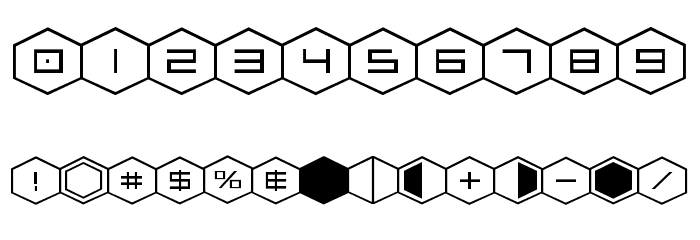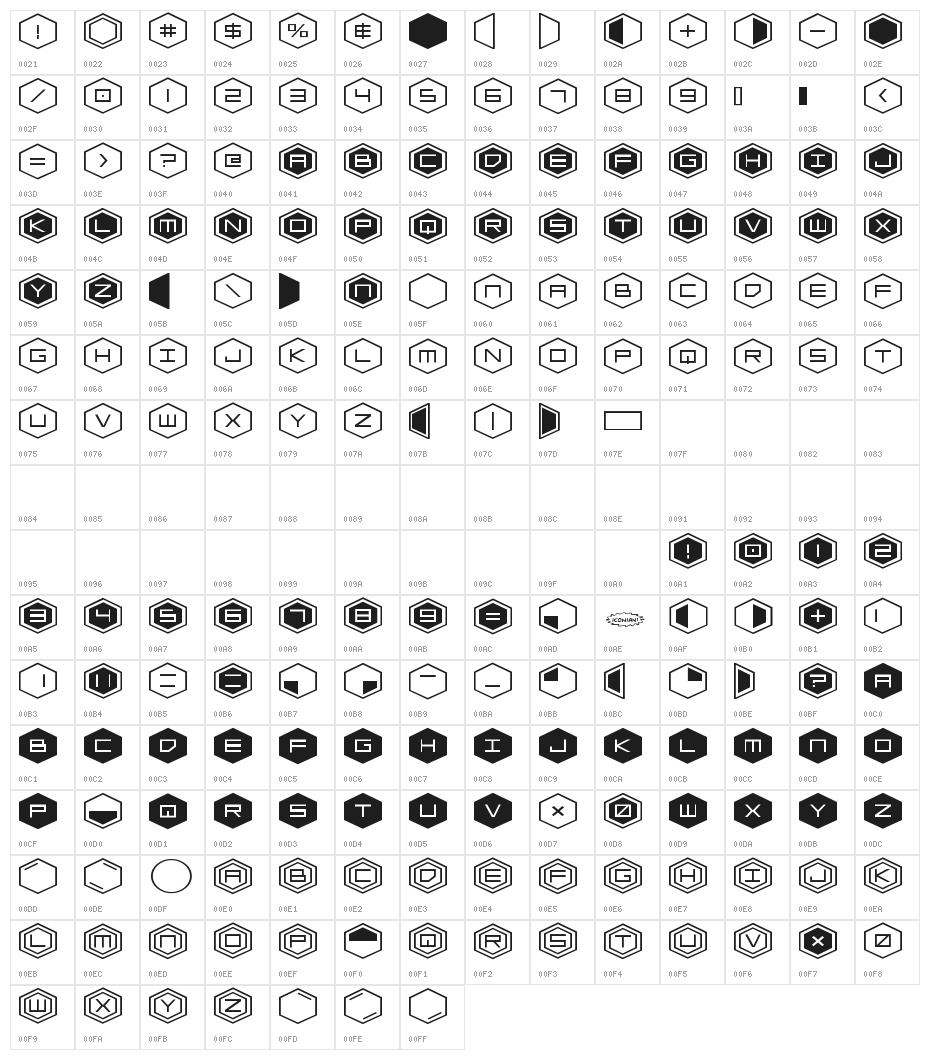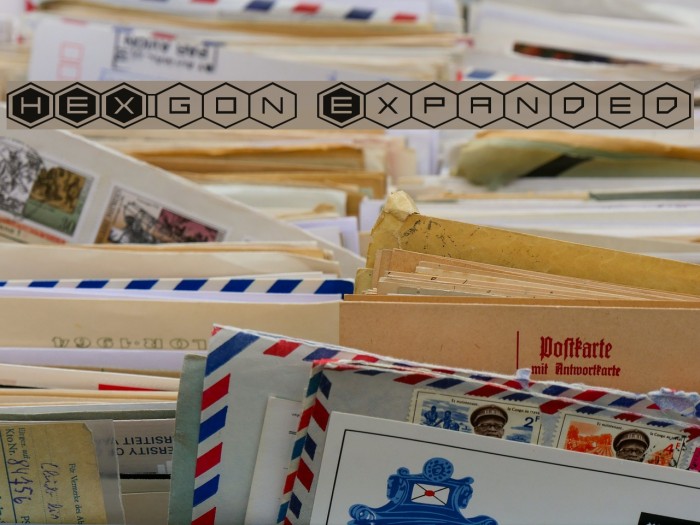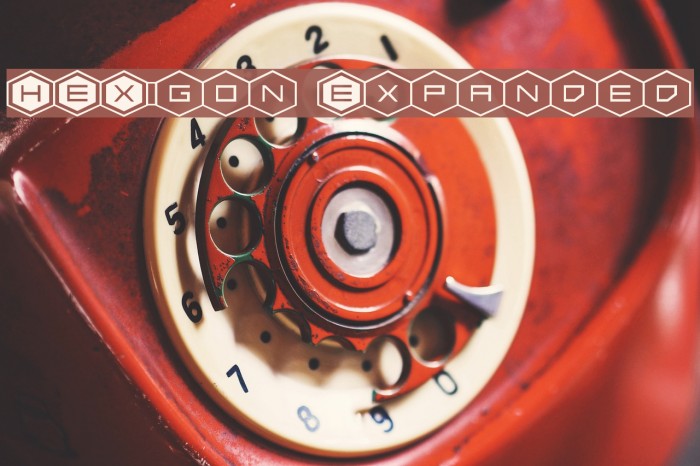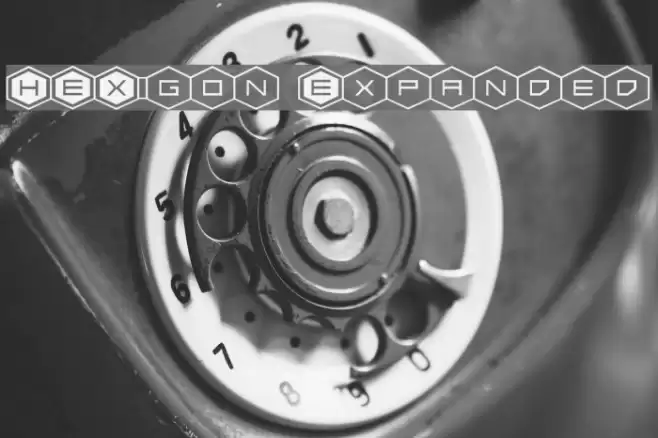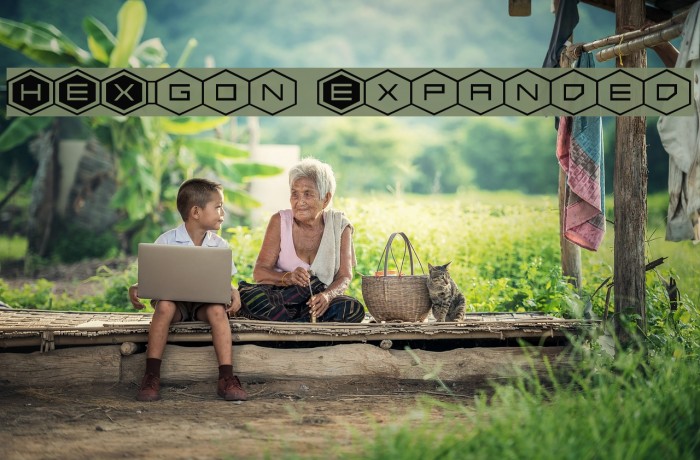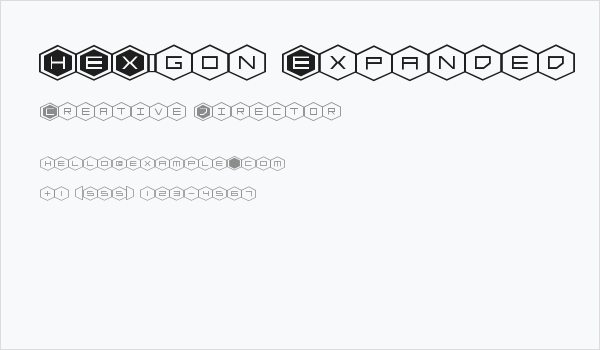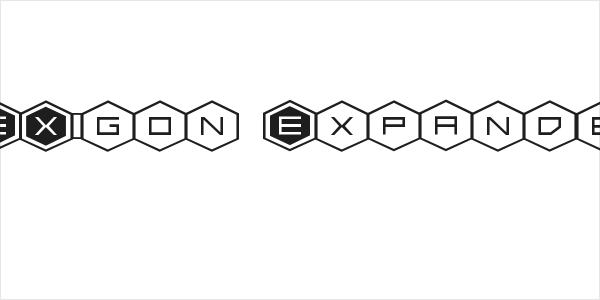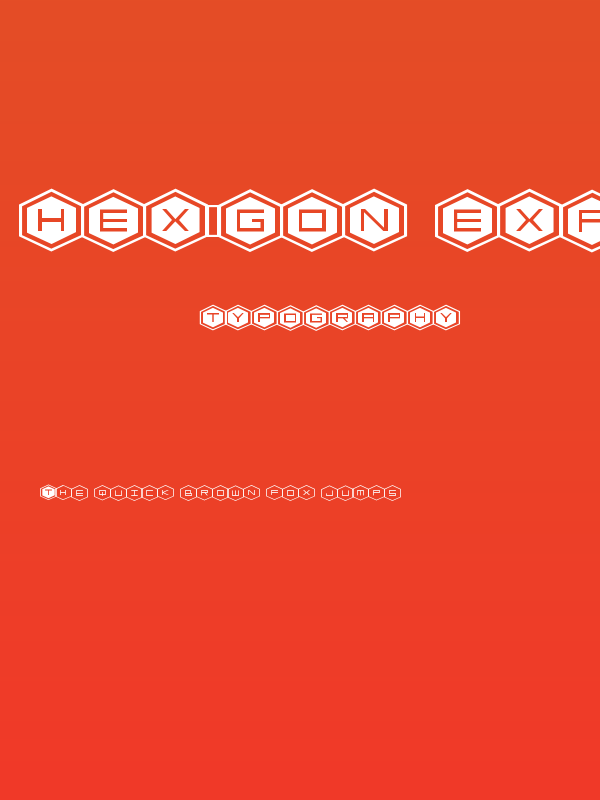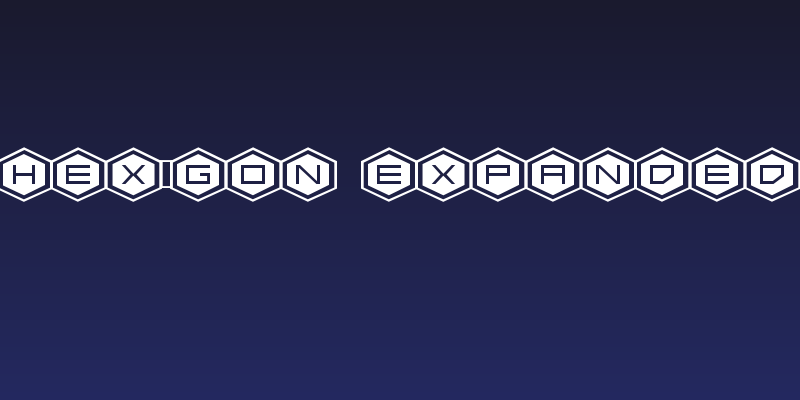
HEX:gon Expanded Font
HEX:gon Expanded Description
This font features a unique hexagonal design where each character is enclosed within a hexagon. The bold, geometric shapes create a striking visual impact, making it ideal for attention-grabbing designs. The uppercase letters and numbers are prominently displayed, with a consistent line thickness that enhances readability. The special characters are also enclosed in hexagons, maintaining the cohesive style. This font's distinct appearance is perfect for projects that require a modern and edgy aesthetic.
Proposed ProjectsIdeal for branding, posters, video game graphics, and futuristic design themes.